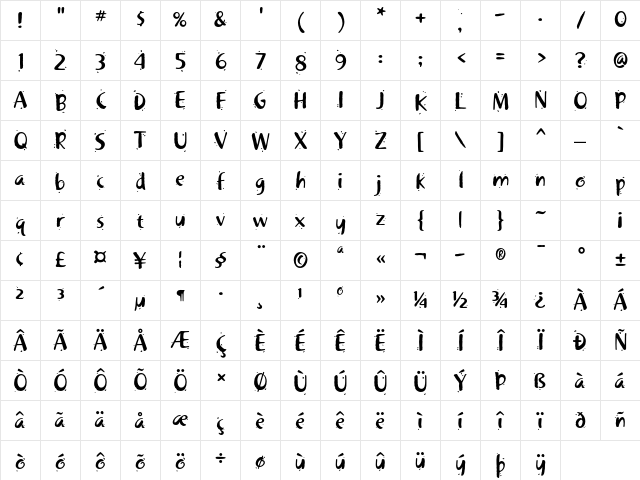
Khaki Std 2
Style: 2
Designer: Steve Miggas
Khaki Std Family
Complete Khaki Std 2 glyph index. Displaying only characters natively supported by Khaki Std 2 font.
Design Context for Khaki Std
Khaki Std is a composed and adaptable typeface that performs quietly and consistently across a wide range of design contexts.